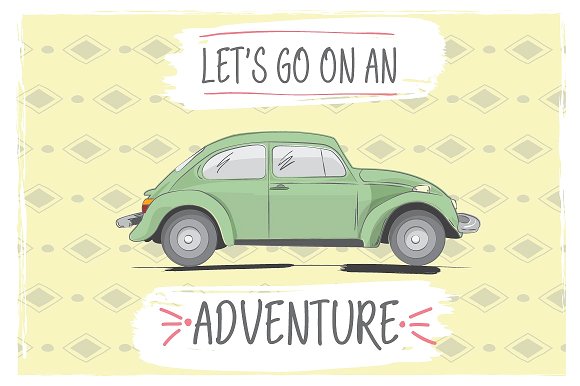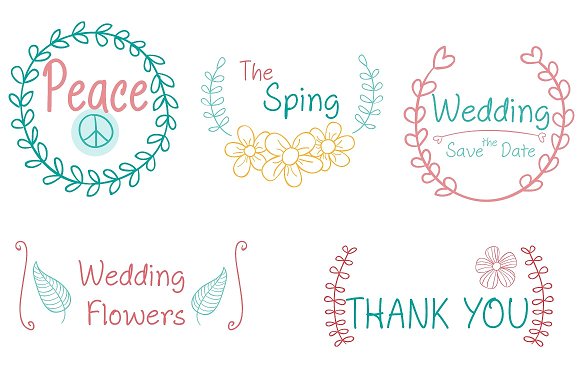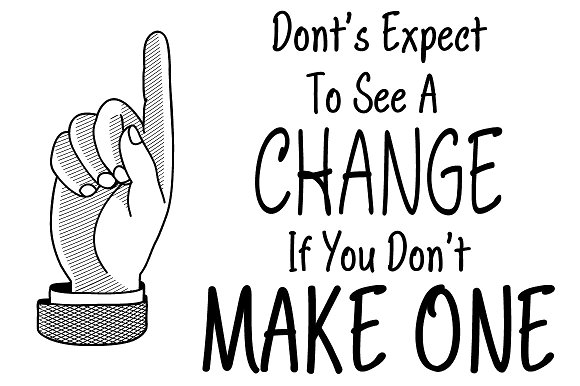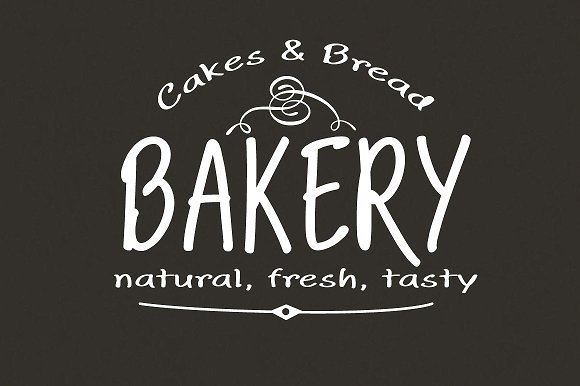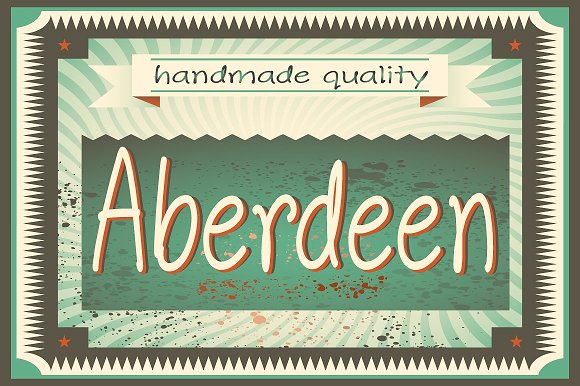
Aberdeen Font Family
Aberdeen is a very legible hand made font. Nice and loose, not too messy and with just a hint of childishness!!!
It was first designed for display, headline, logotype, branding, and similar applications but thanks to the bolder weights, it can also be used in smaller sizes, you can combine different weights for different sizes to obtain a more balanced look, or you can just give emphasis using different weights.